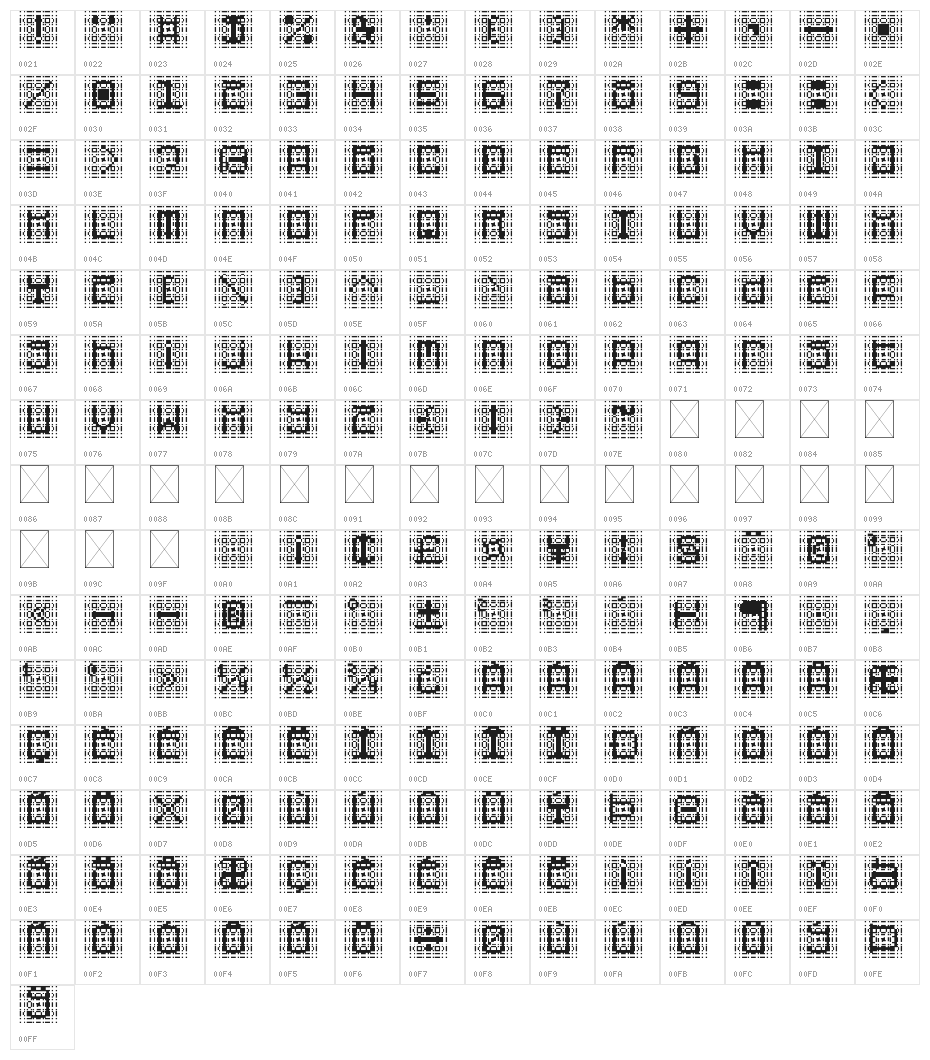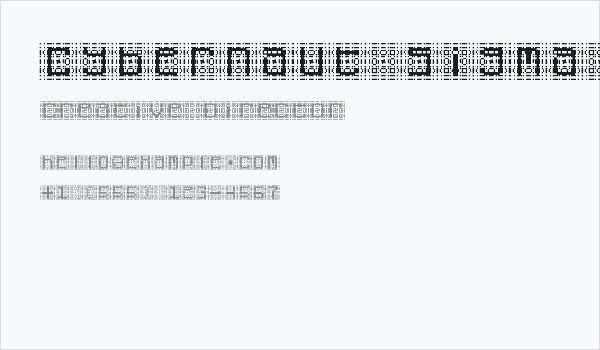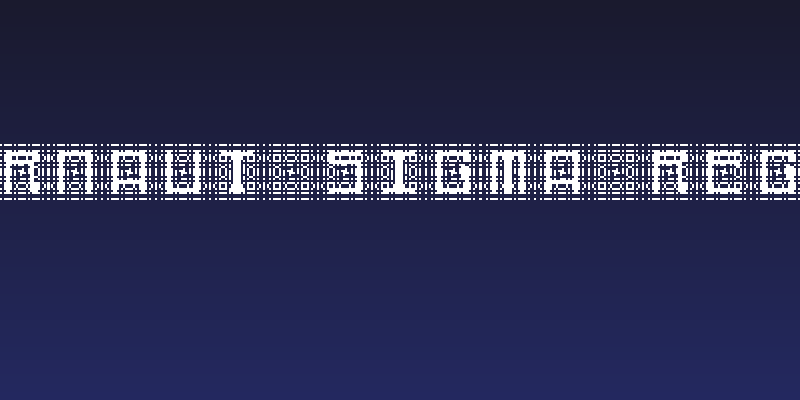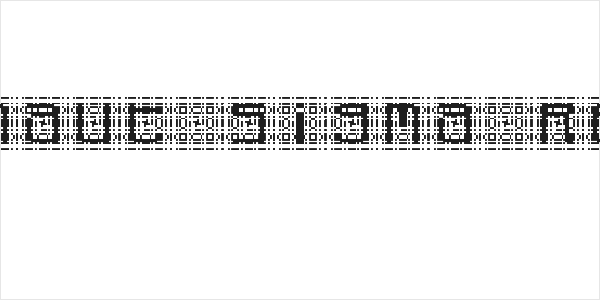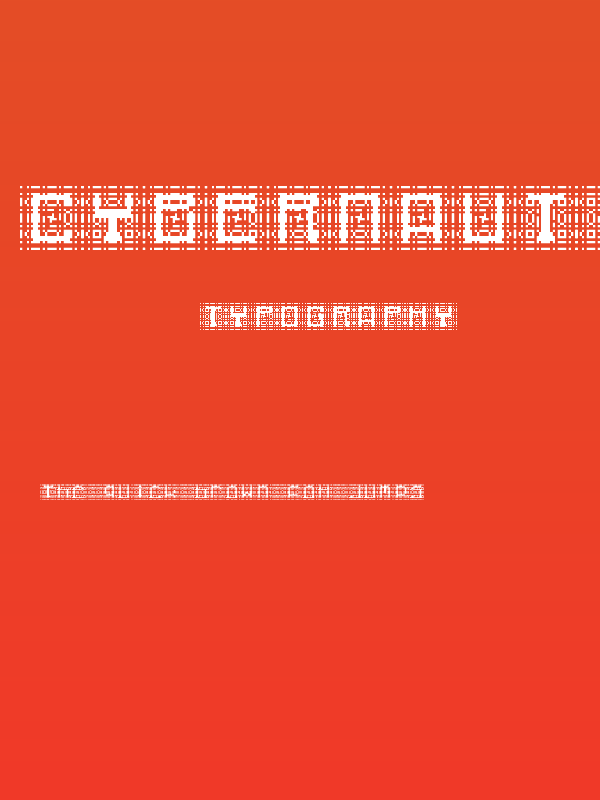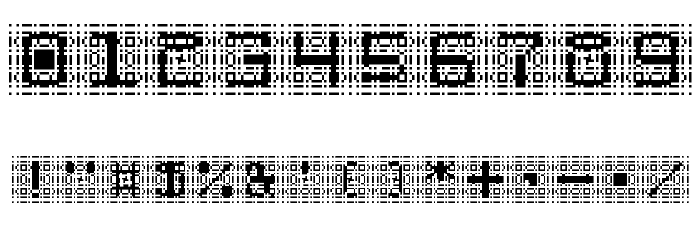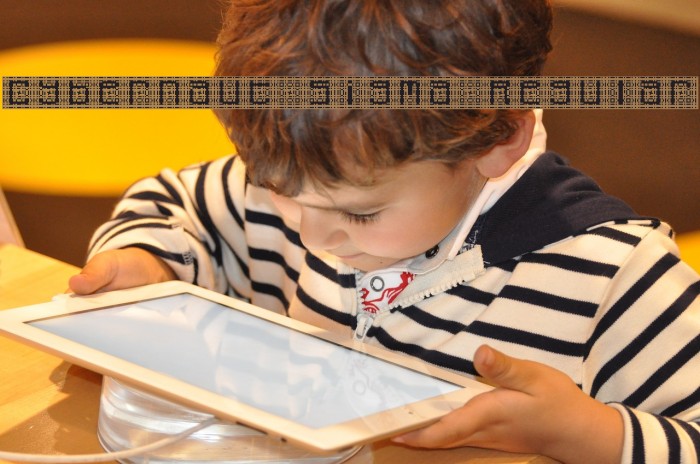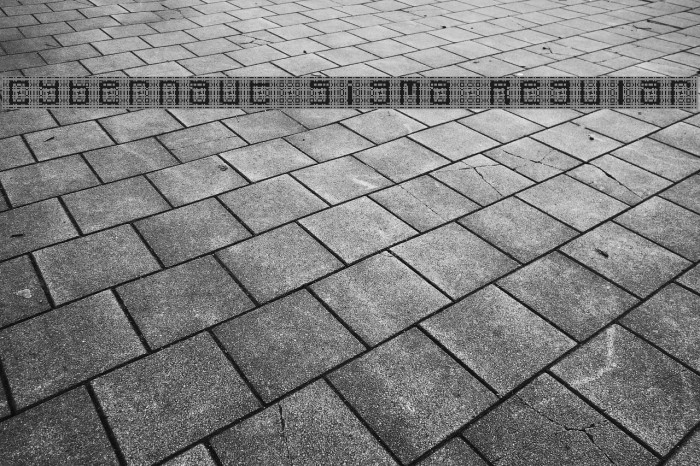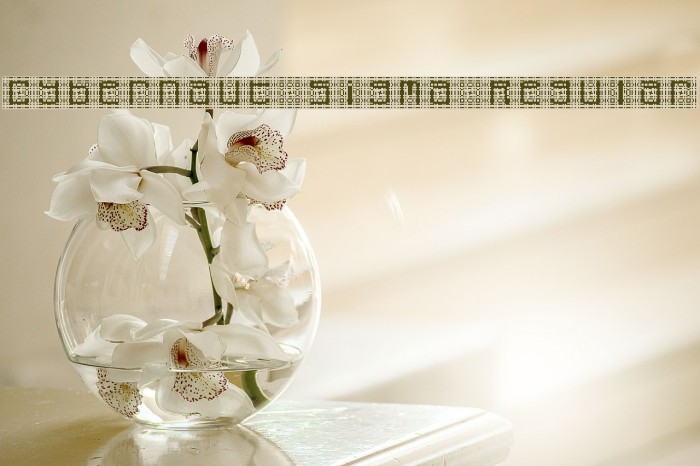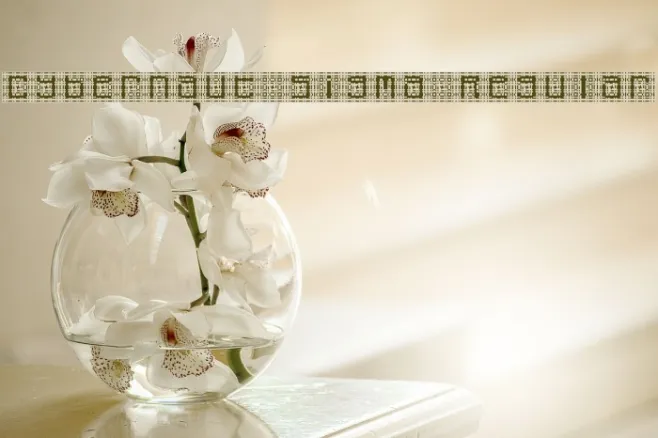
Cybernaut Sigma Regular Font
Cybernaut Sigma Regular Description
This font features a futuristic, digital aesthetic with a grid-like pattern that gives it a high-tech, cybernetic feel. The characters are constructed with a pixelated design, creating a sense of depth and complexity. Each letter and number is enclosed within a square, enhancing the structured and mechanical appearance. The font is highly stylized, making it ideal for projects that require a modern and technological look. Its unique style is reminiscent of digital displays and electronic interfaces, making it suitable for themes related to technology, gaming, and science fiction.
| Proposed Projects | Ideal for technology-themed designs, gaming interfaces, sci-fi posters, and digital art projects. |